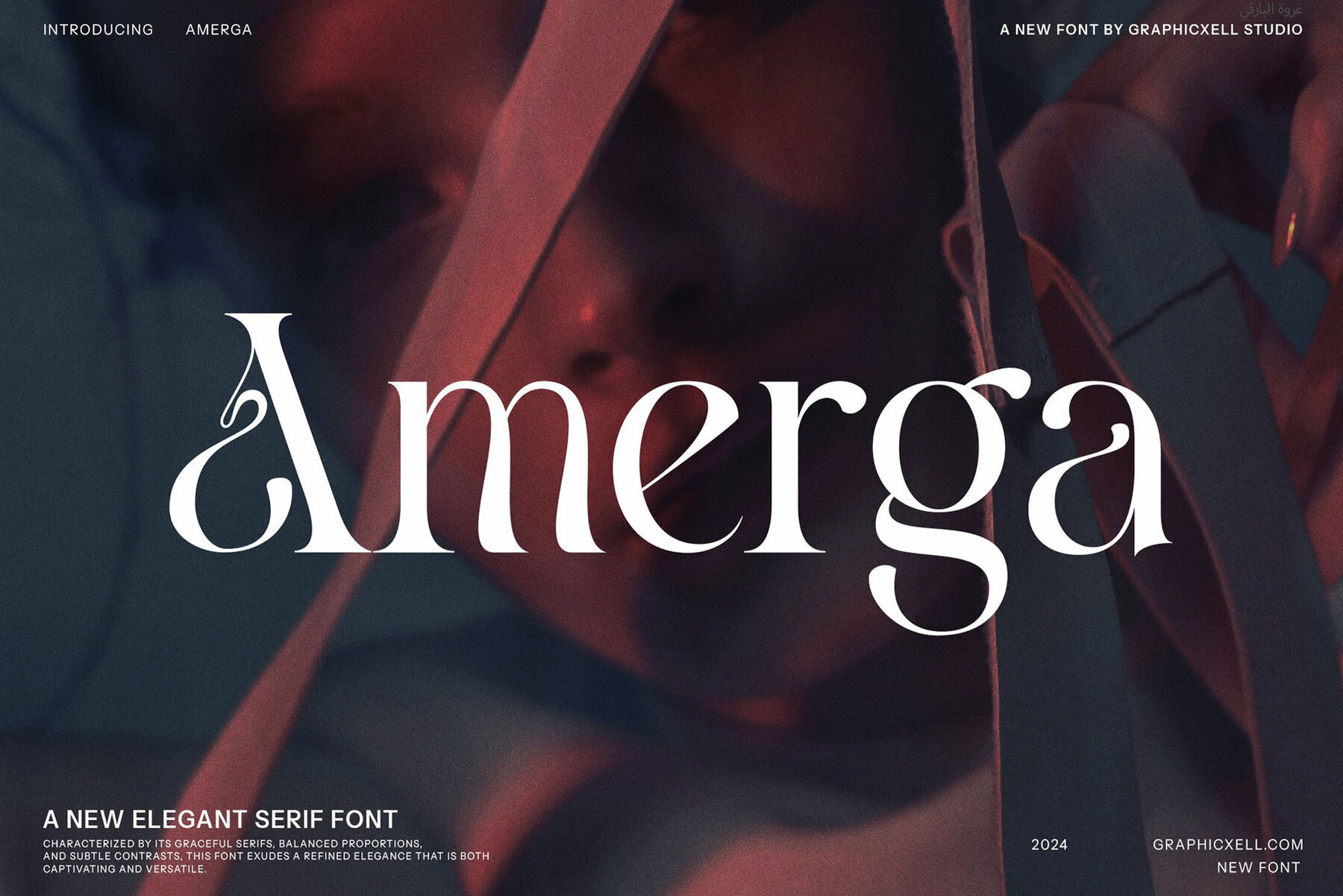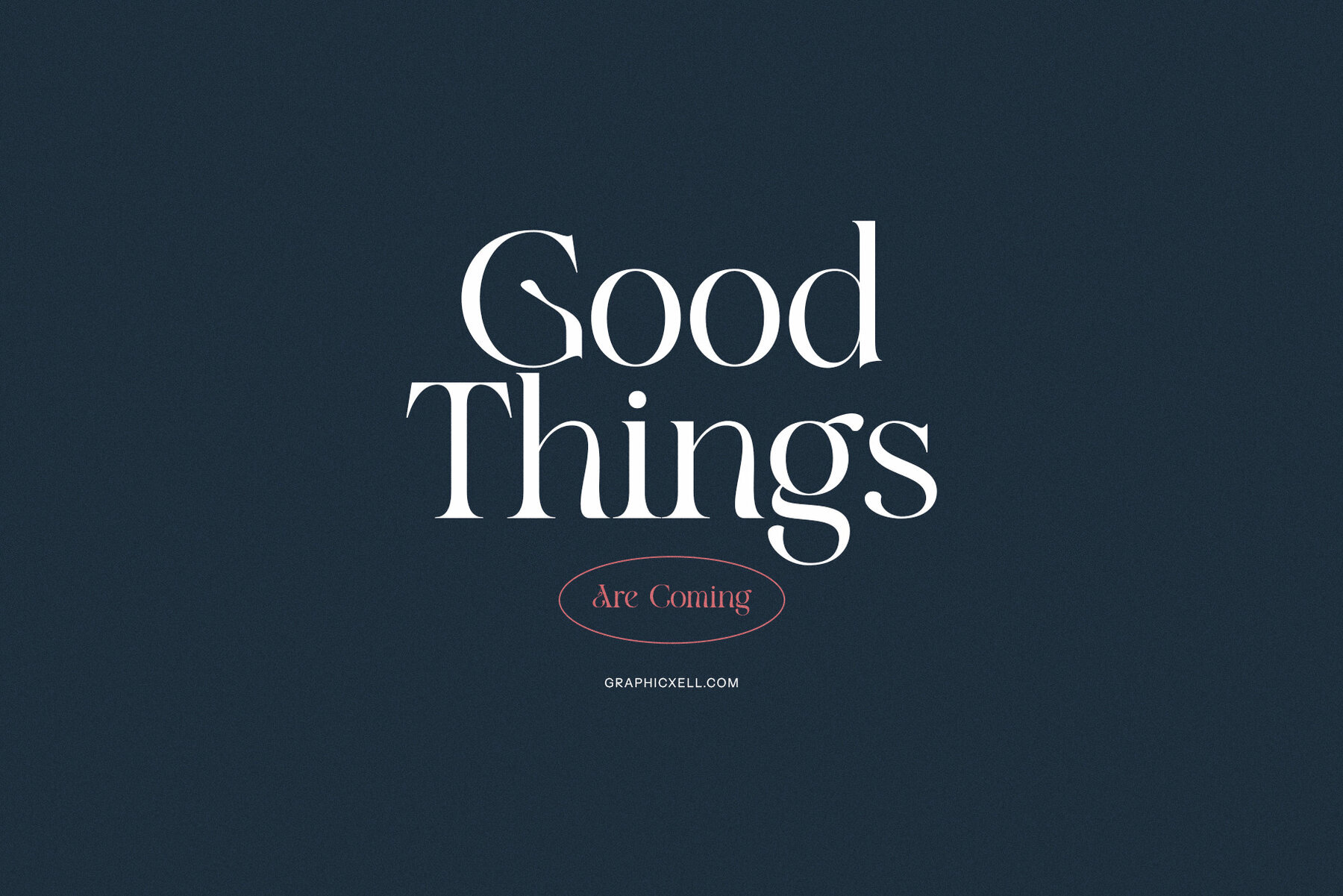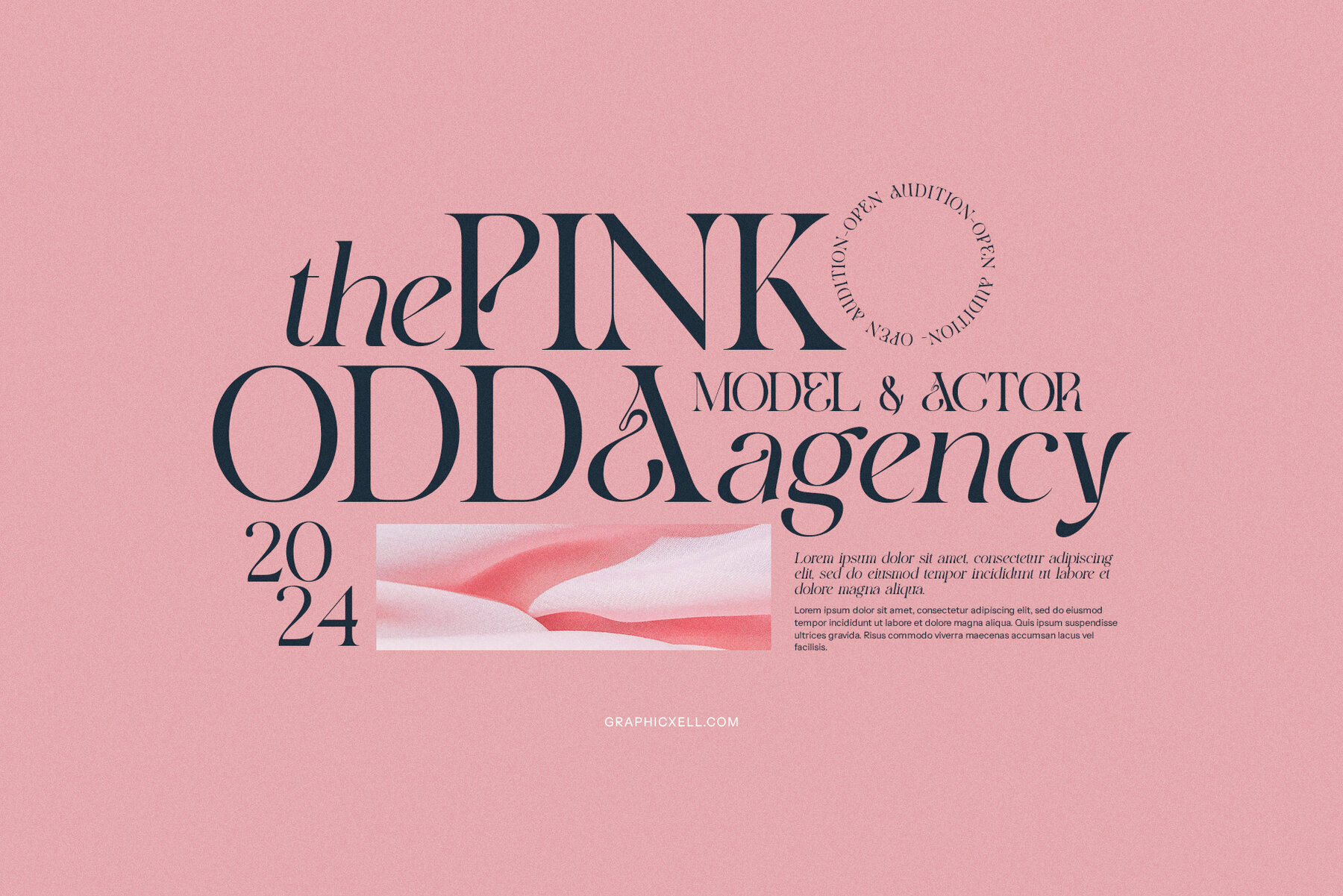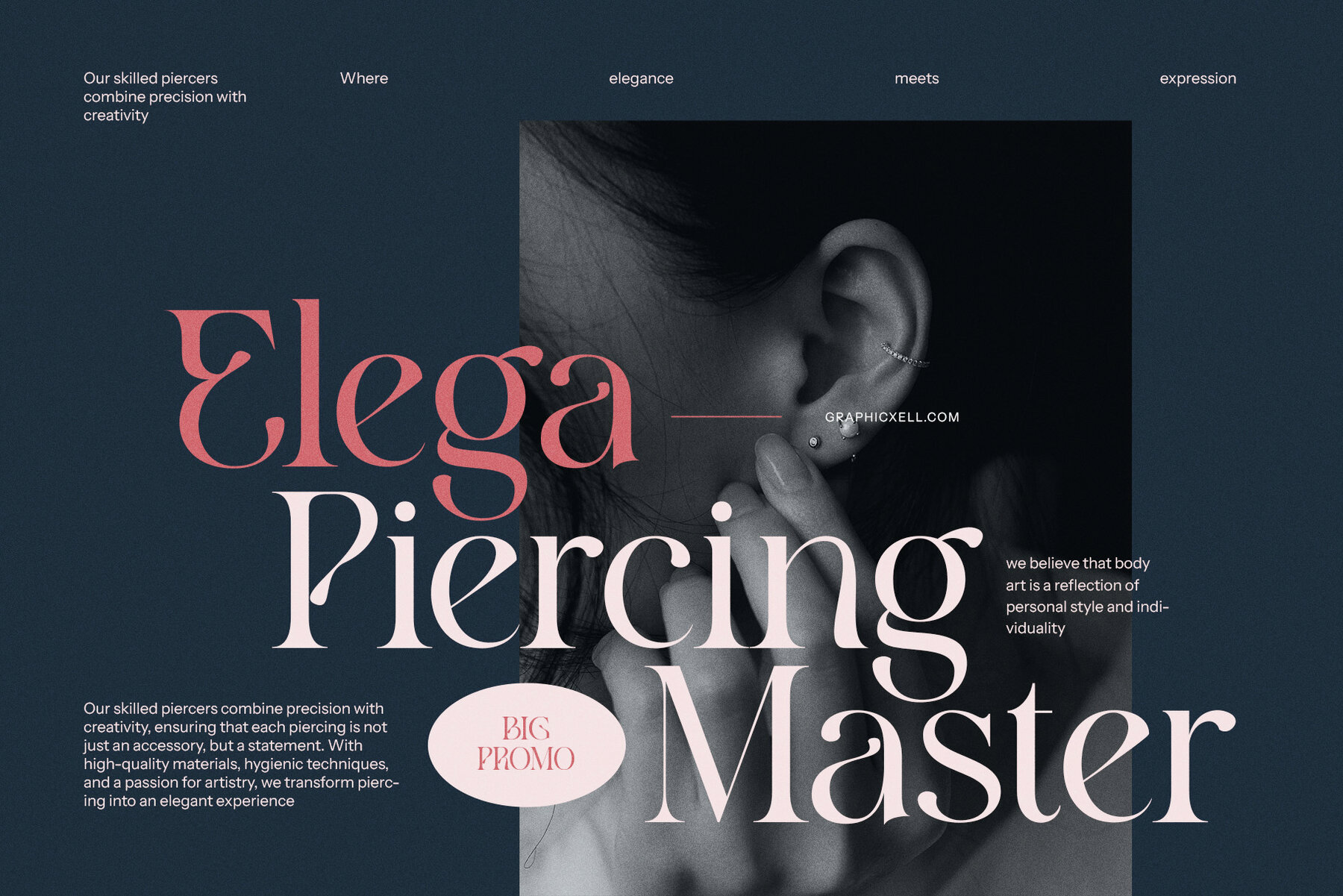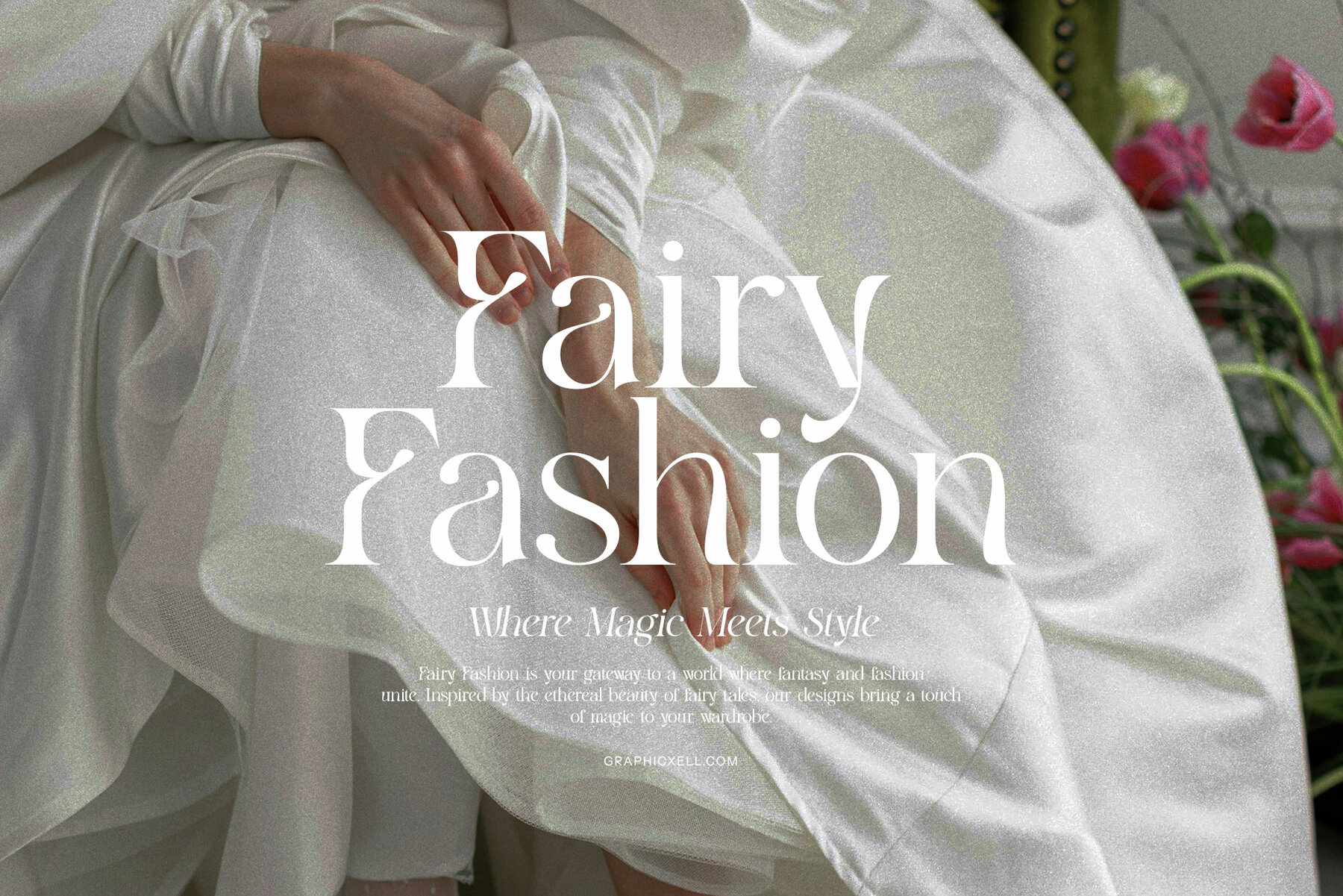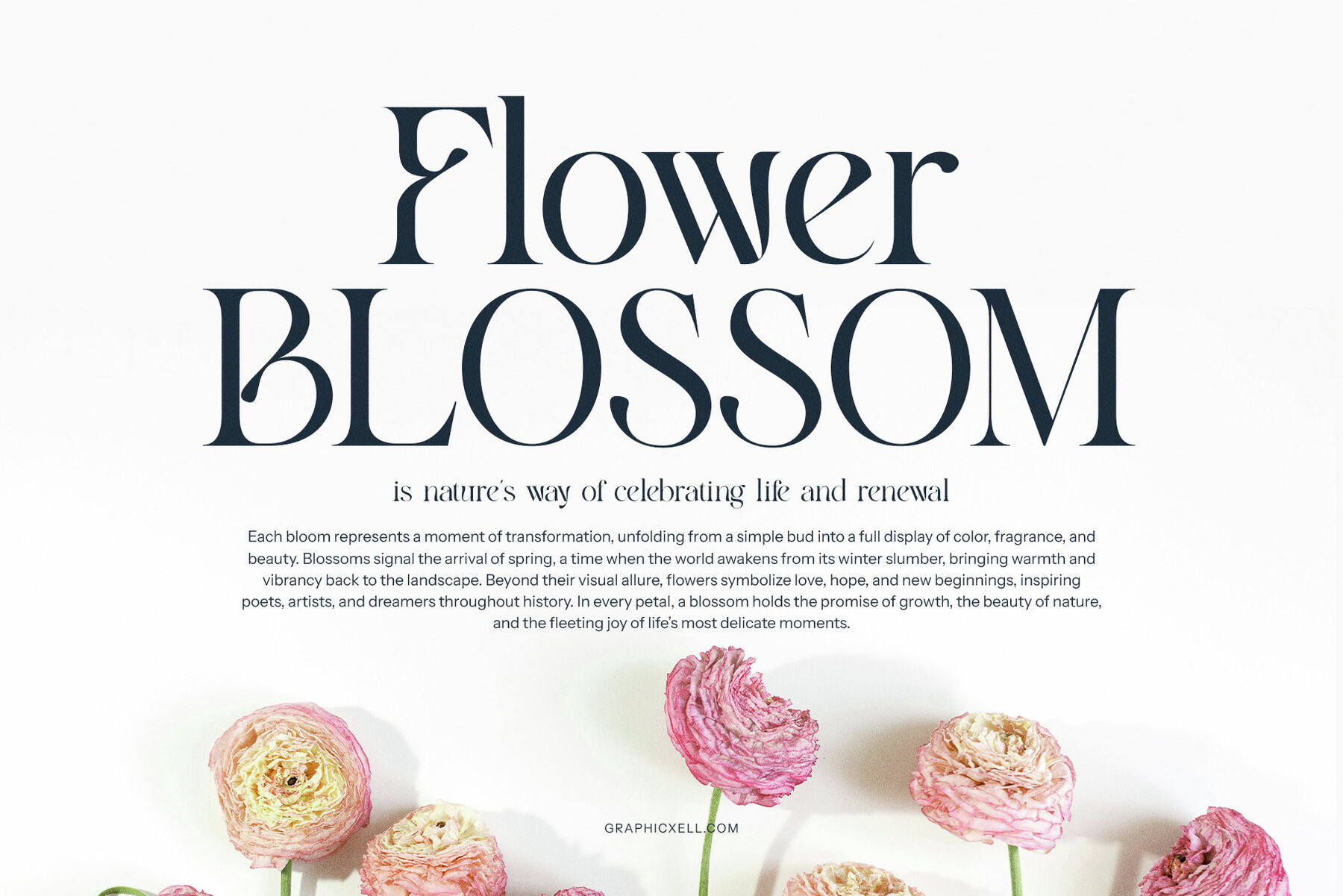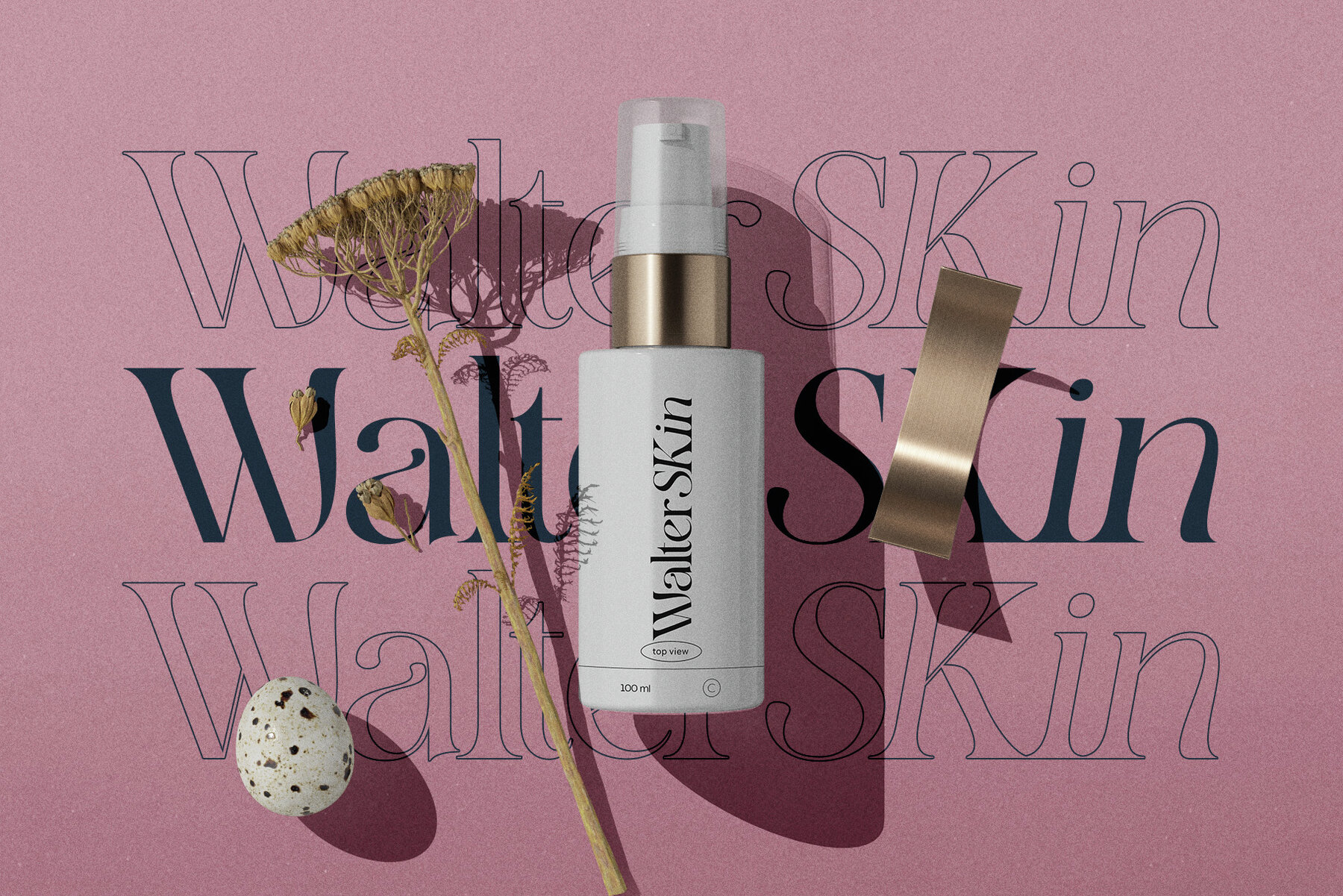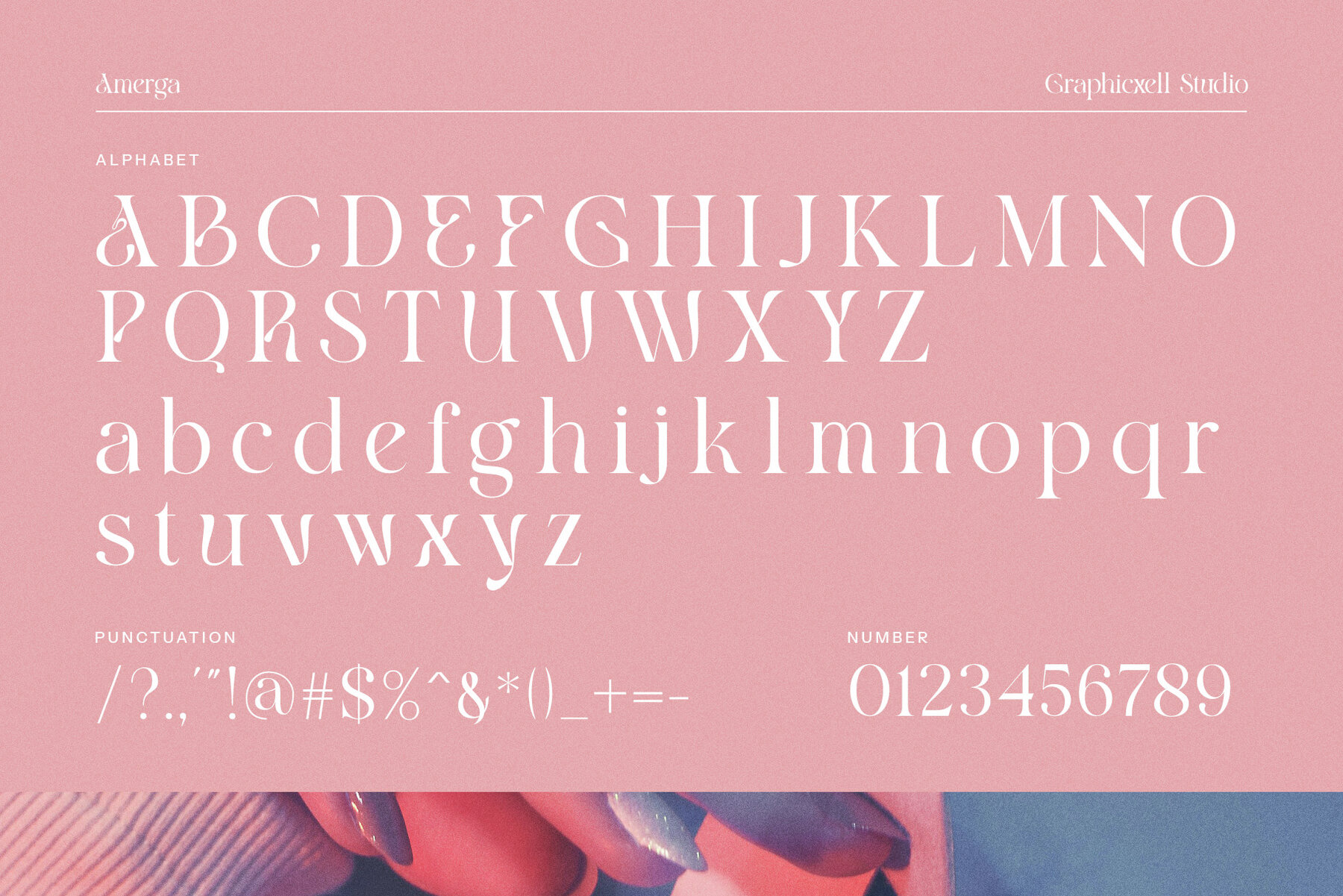
Amerga Font
Amerga
Discover a fresh blend of elegance and modernity with this unique serif font that sets a high standard in typography. Merging classic serif traits with contemporary design, each character is crafted with stylish curves and sharp serifs, creating an eye-catching impression. The distinctive letterforms provide a refined artistic touch, ideal for projects that require a balance of luxury and modern innovation. This typeface pays homage to traditional typography while presenting an unmistakable statement of modernity.
Perfect for a wide range of applications, this font excels in branding, logo creation, magazine layouts, and advertisements. Its elegant strokes ensure readability while adding sophistication, adapting seamlessly to everything from high-end packaging to lifestyle blogs. The design communicates both creativity and professionalism, making it suitable for any brand aiming to leave a memorable impact. Beyond its functionality, this font encourages artistic exploration and narratives, ideal for designers pushing the boundaries of visual expression. With a timeless appeal, it supports a variety of projects needing both longevity and relevance, making it a versatile tool for designers.